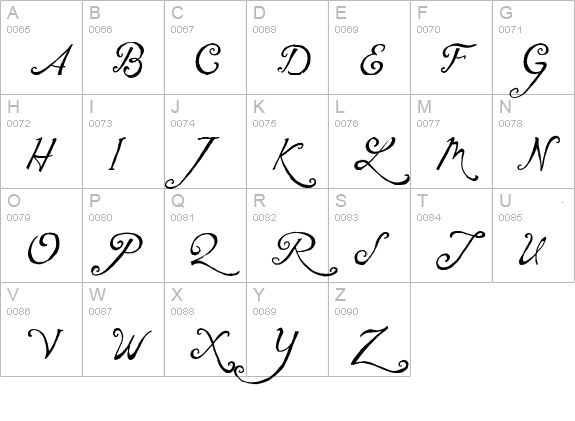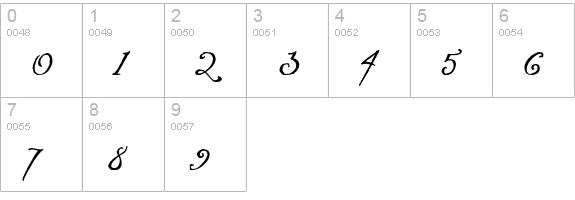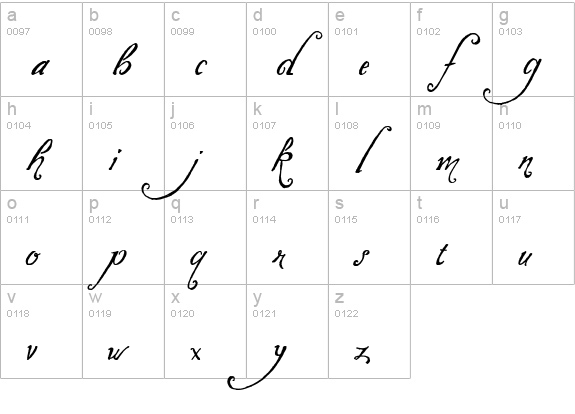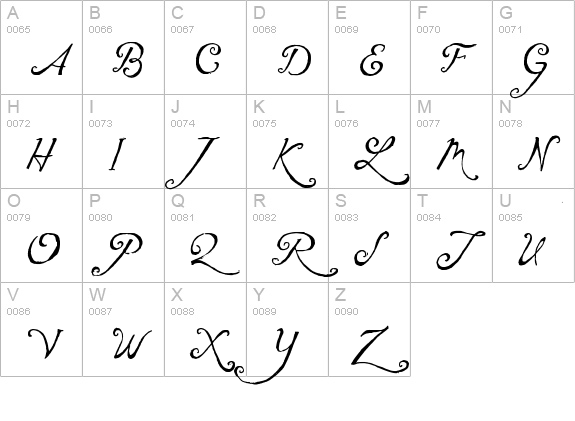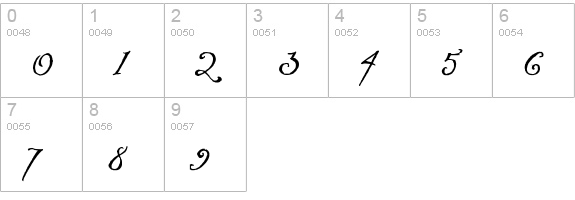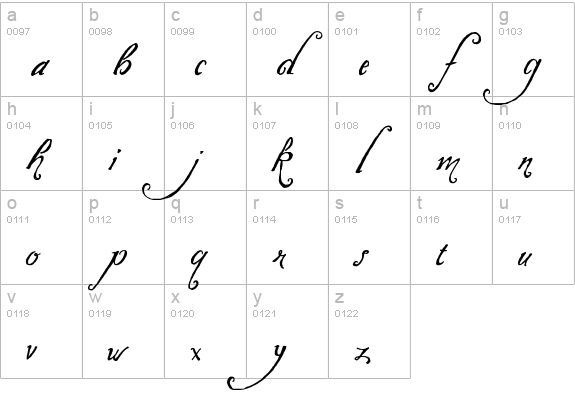
CK Elegant Font Details
Introducing CK Elegant font, a sophisticated and stylish typeface that exudes elegance and charm. This beautifully crafted font is perfect for adding a touch of class to your projects, whether it's invitations, logos, branding, or other design work. With its sleek lines and graceful curves, CK Elegant font is sure to make a lasting impression. And the best part? CK Elegant font is available for free! You can easily download this exquisite font at FontsMarket.com and start using it right away. Don't miss out on the opportunity to elevate your designs with the timeless beauty of CK Elegant font. Download it now and add a touch of sophistication to your creations.